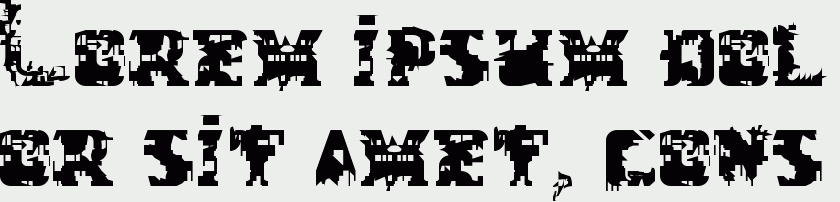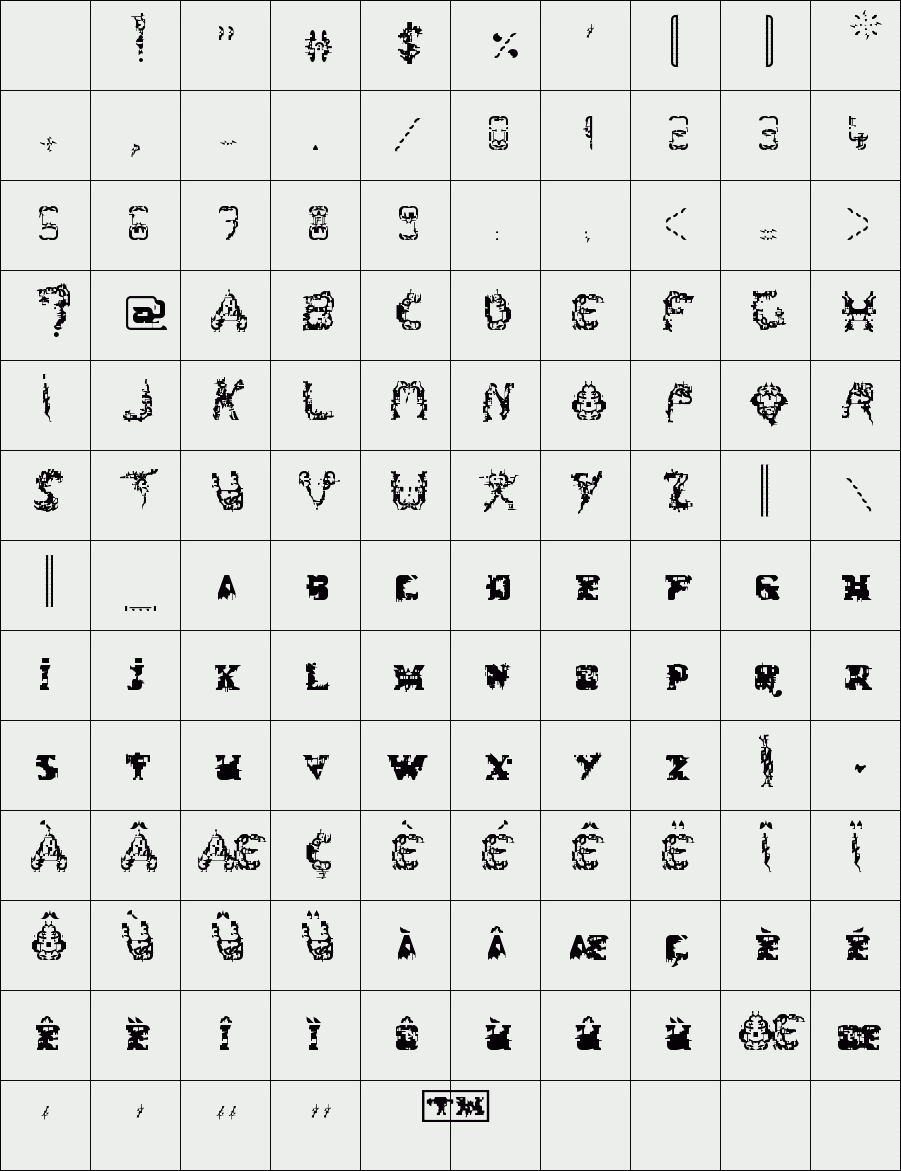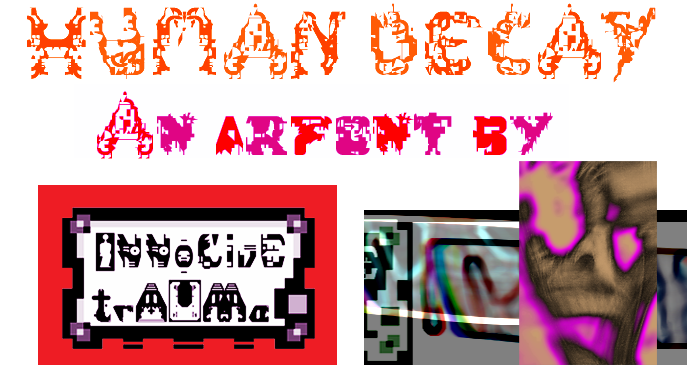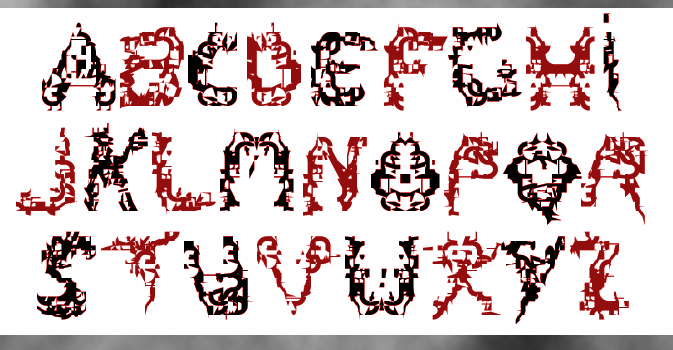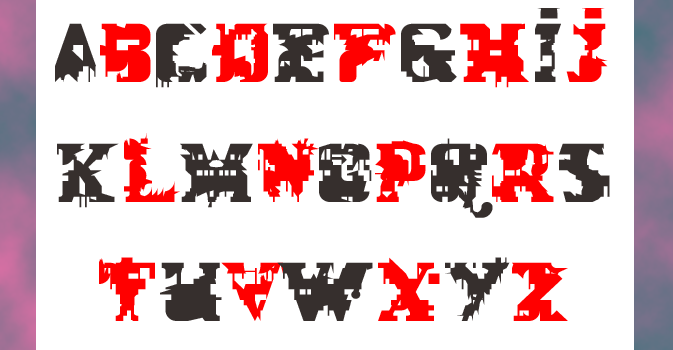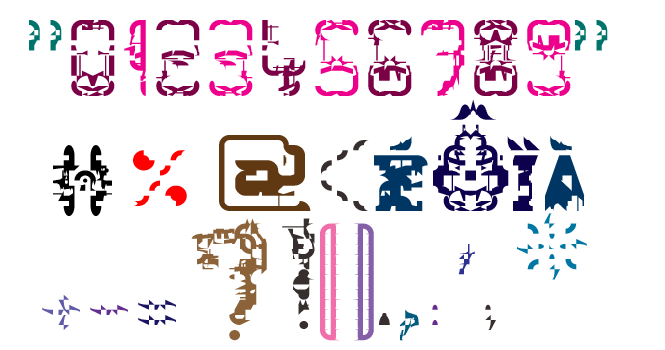
trAUMa 117 / Human Decay
"Human Decay", like all the "trAUMa" series, works at the frontier between Art & Type Design, Figuration & Abstraction, each font is a comprehensive world in which every glyph is a "living" entity. But put together they can produce your messages in the most accurate way.